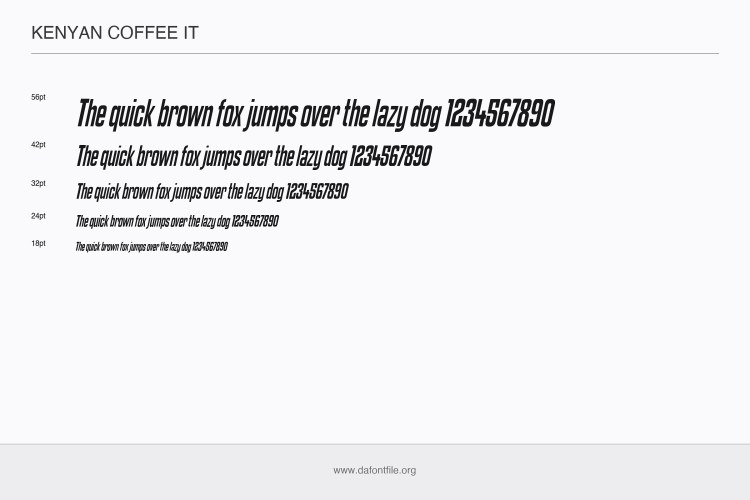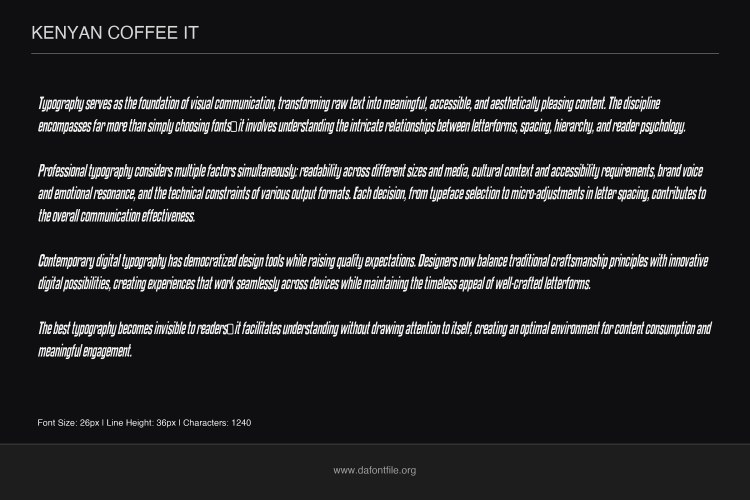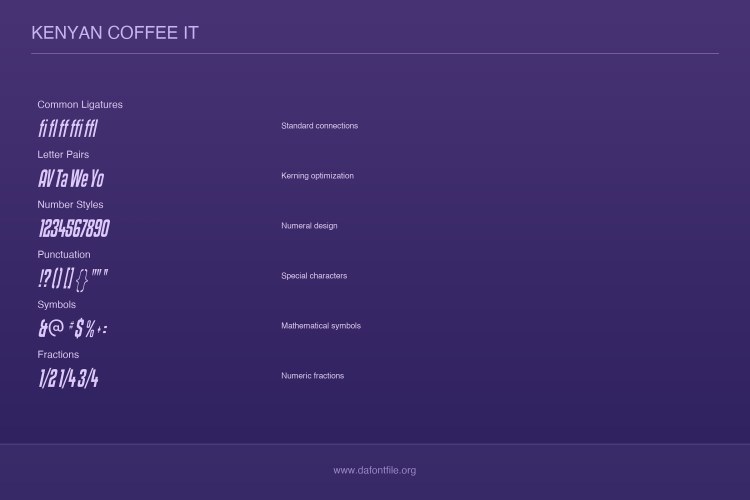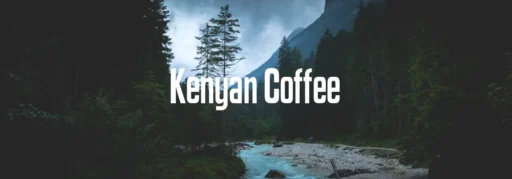
Kenyan Coffee Font Family
Kenyan Coffee delivers a bold, condensed sans serif style with a modern edge. Its tall letterforms and clean structure grab attention in headlines, logos, posters, and packaging. The font brings strong impact while keeping every word clear and readable.
Where Kenyan Coffee Font Family works best
Kenyan Coffee Font Family keeps its shape at 14 and 16 pixels, which is where interface text actually lives. Numbers and capitals stay distinguishable in tables.
Presentations are read at a distance; a clean sans with a strong bold is the safest hierarchy you can build in a hurry.
Simple letterforms survive angles, glare and movement, so Kenyan Coffee Font Family suits door signs, menus boards and exhibition panels.
What kind of work does Kenyan Coffee Font Family suit?
It sits in the Sans Serif Fonts group and reads as bold, clean, condensed, modern. That makes it a candidate wherever those qualities help: headings, packaging, social graphics and brand work. Set it at the size you plan to use before deciding.